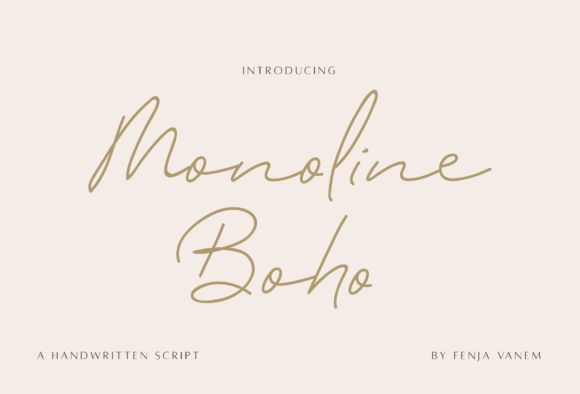
Introducing Monoline Boho, the ultimate font for modern resumes that will captivate the hearts and minds of employers. Created by the talented designers at Pretty Decadent, this script font is not your average typeface – it's a work of art that will make your resume stand out from the crowd.
With its classy and minimalistic design, Monoline Boho exudes elegance and sophistication. Every curve and stroke has been carefully crafted to perfection, giving your resume a professional and polished look. Say goodbye to boring and generic fonts, and hello to a font that truly represents your unique personality.
But what sets Monoline Boho apart from other script fonts? It's the perfect blend of clean minimalism and the charm of handwritten typography. This font strikes the perfect balance between professionalism and creativity, making it suitable for a wide range of industries and job positions.
One of the standout features of Monoline Boho is its extensive collection of glyphs and swashes. With PUA encoding, accessing these decorative elements is a breeze. Add a touch of flair and individuality to your resume by incorporating beautiful swashes and glyphs that will leave a lasting impression on potential employers.
Imagine the impact of a resume that showcases your skills and experiences in a font that exudes confidence and style. Monoline Boho will help you create a memorable first impression, increasing your chances of landing your dream job. From graphic designers to marketing professionals, this font is a must-have for anyone looking to make a statement with their resume.